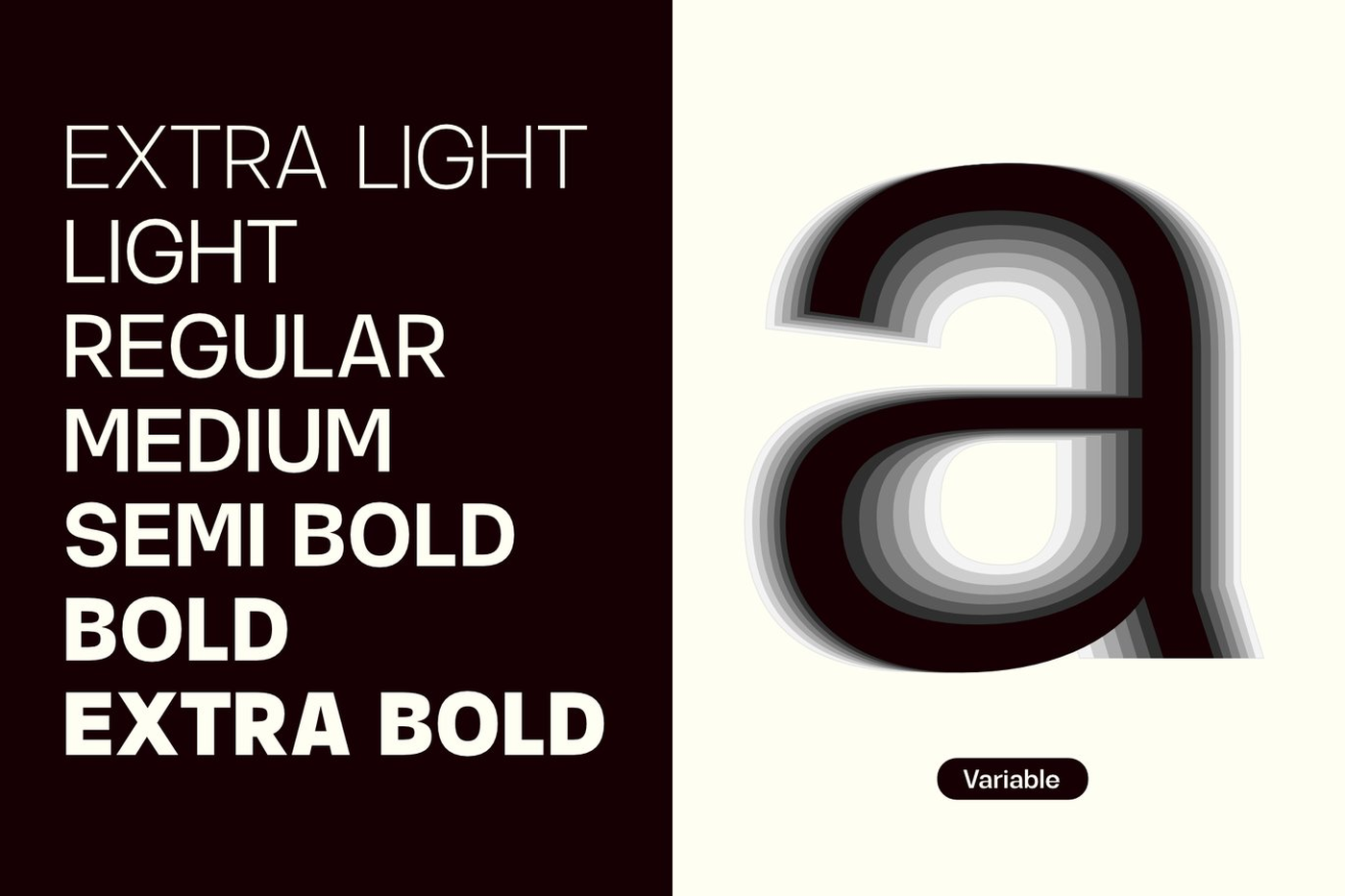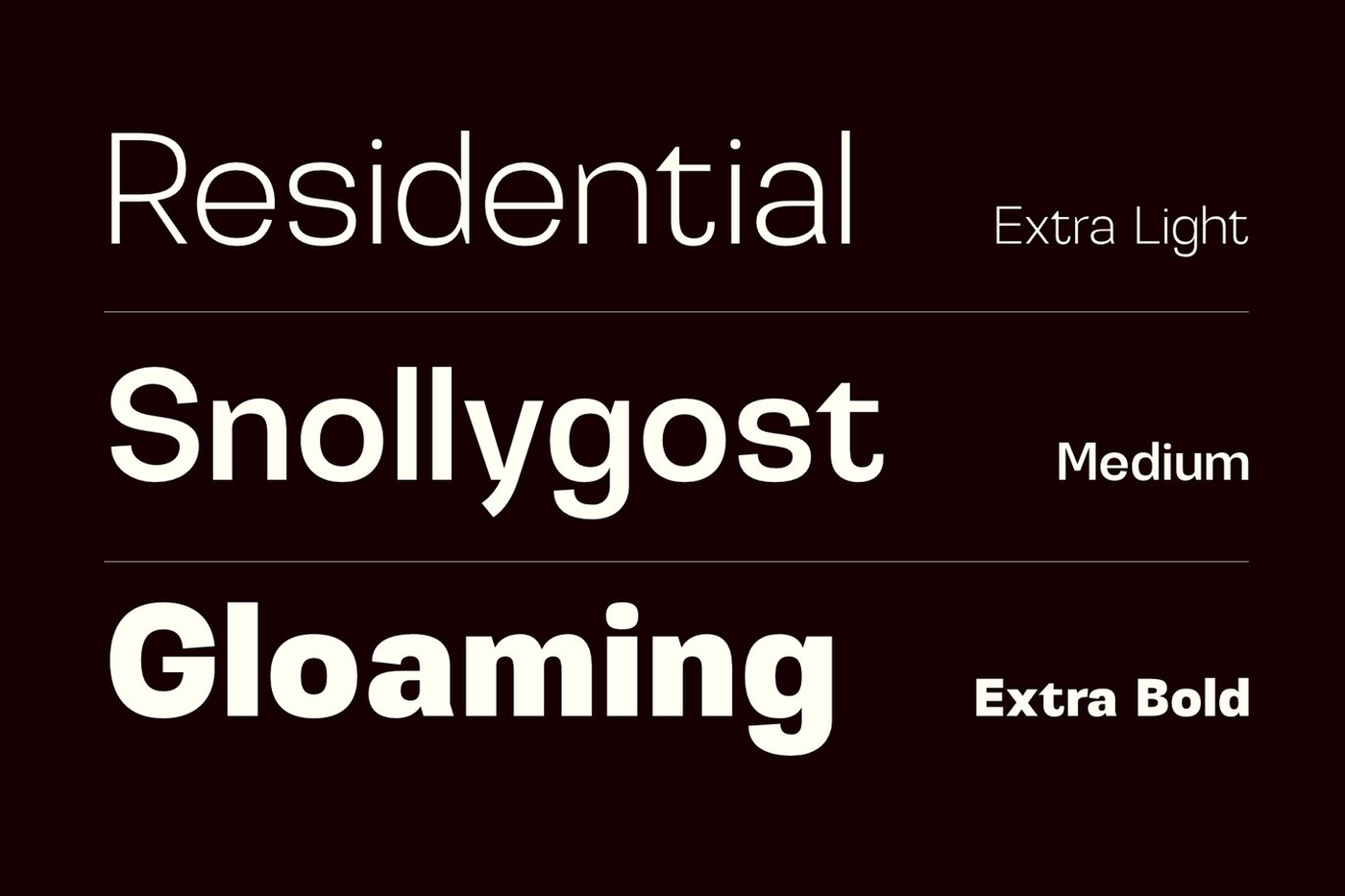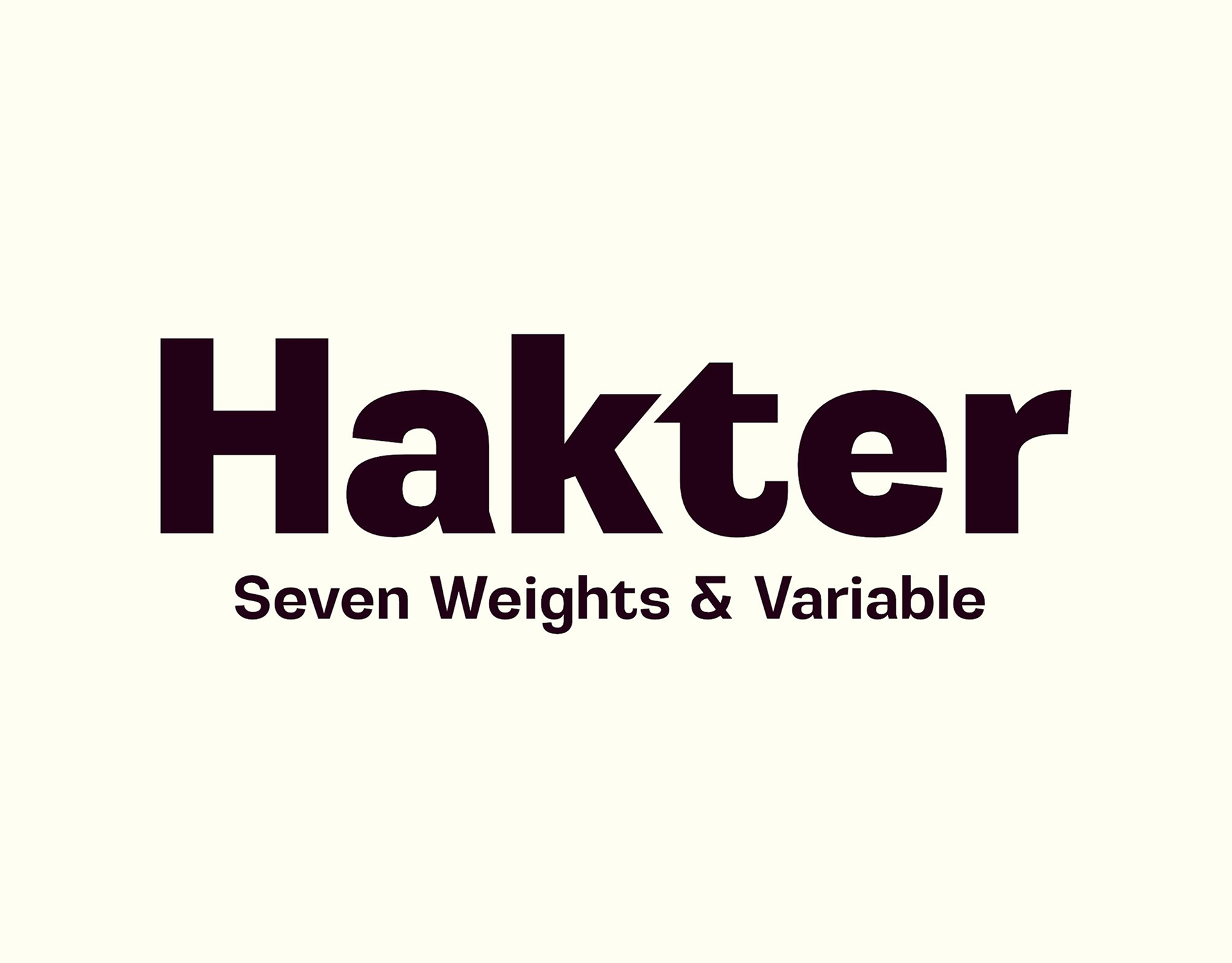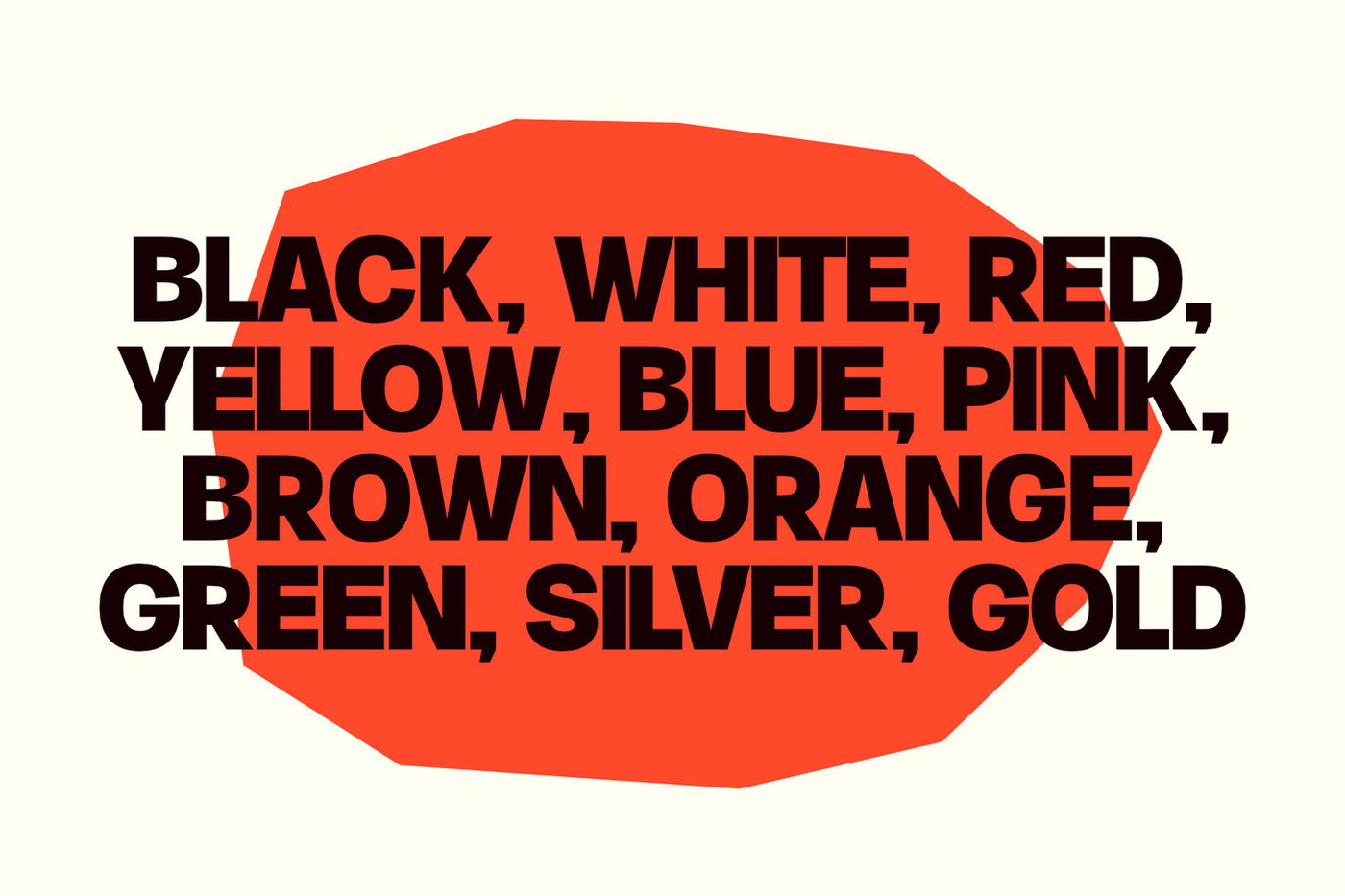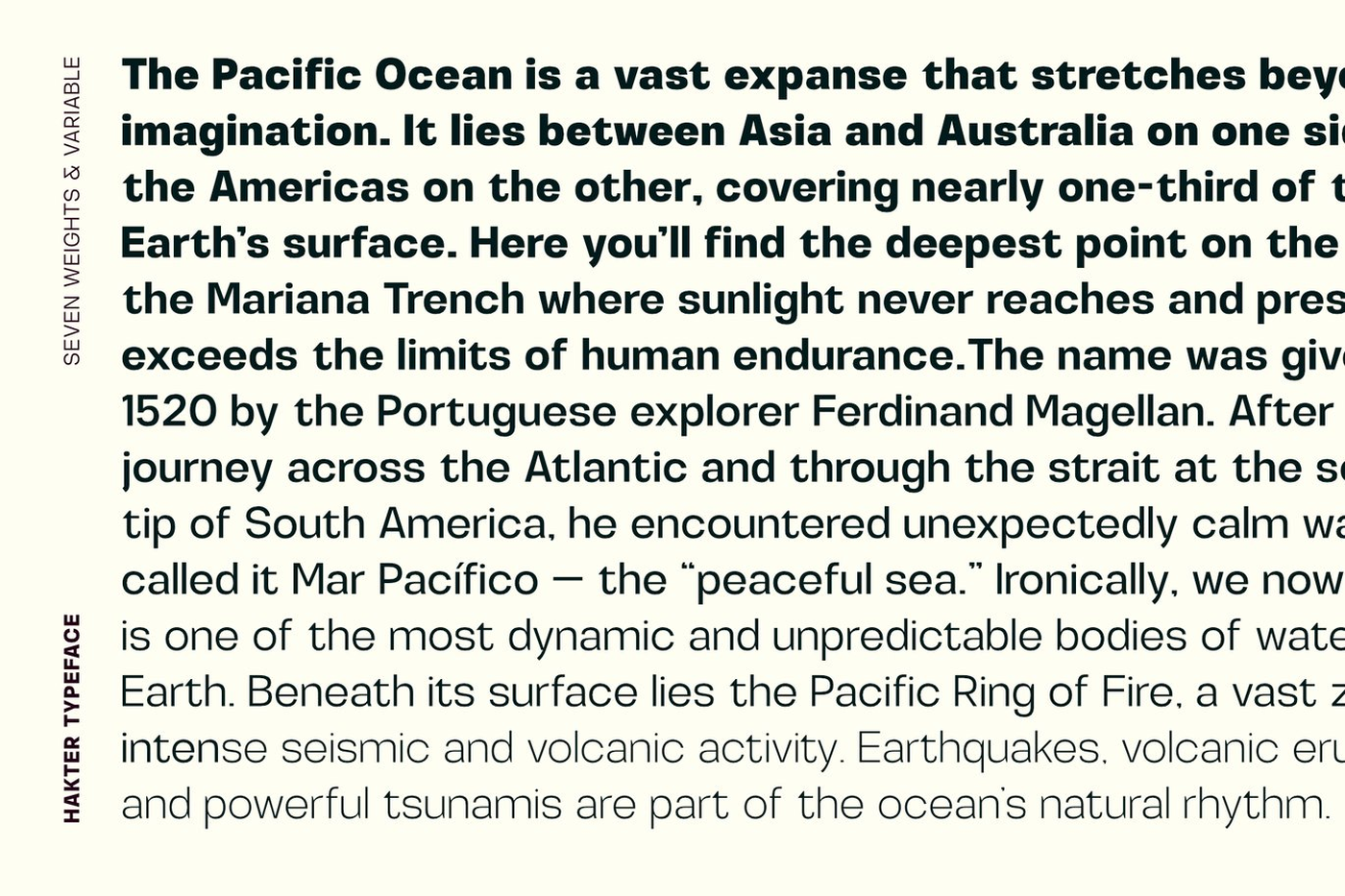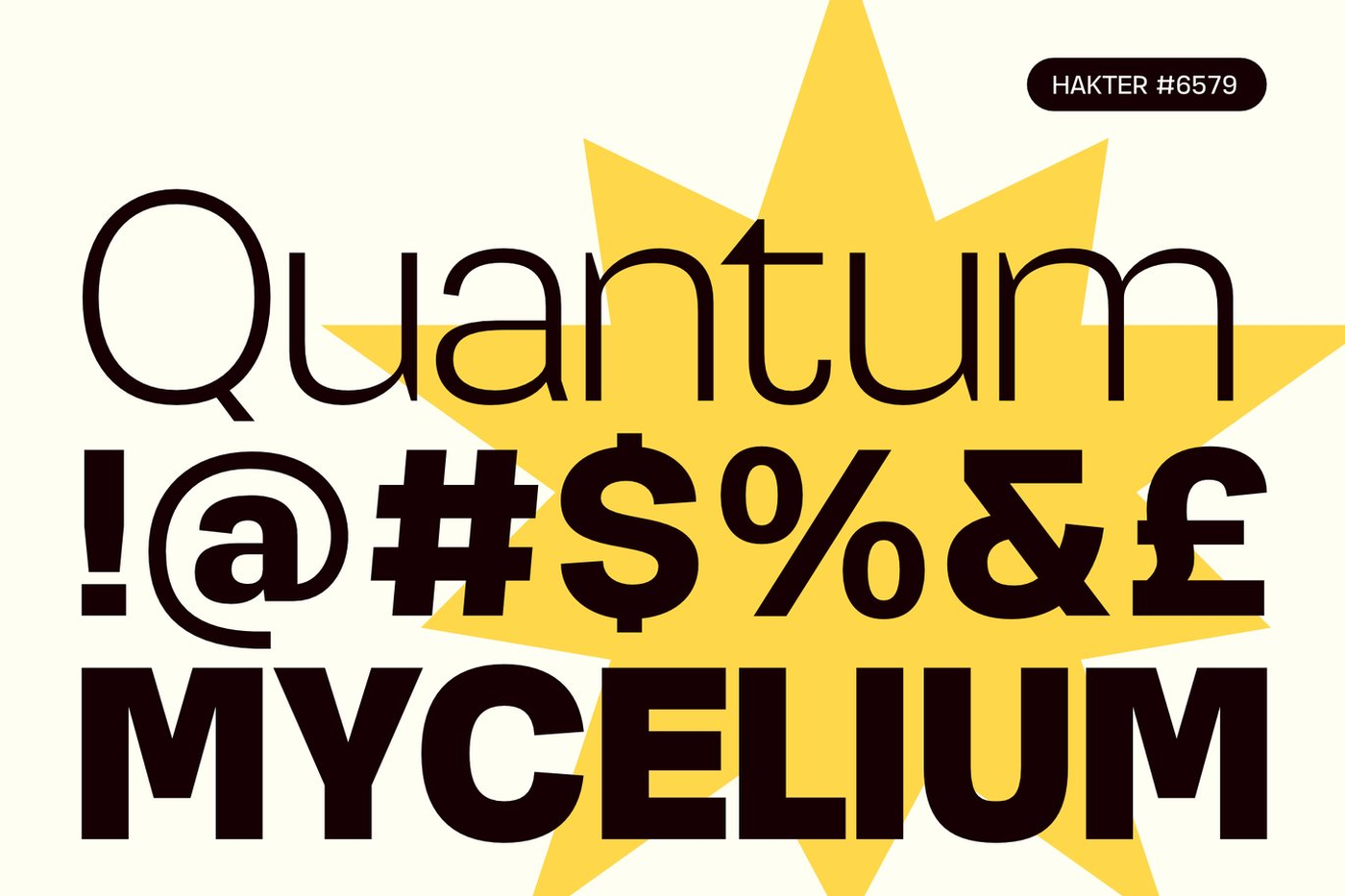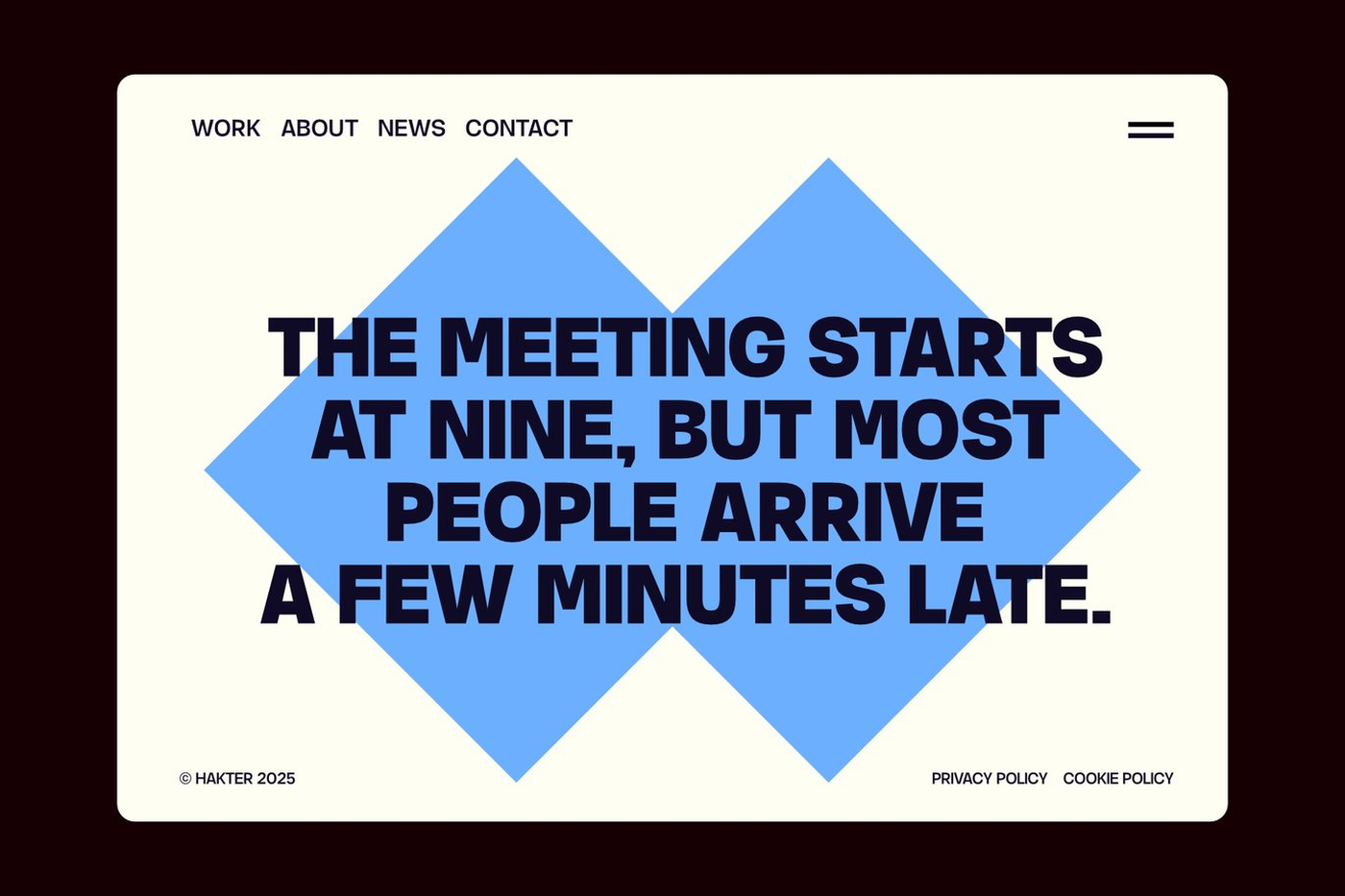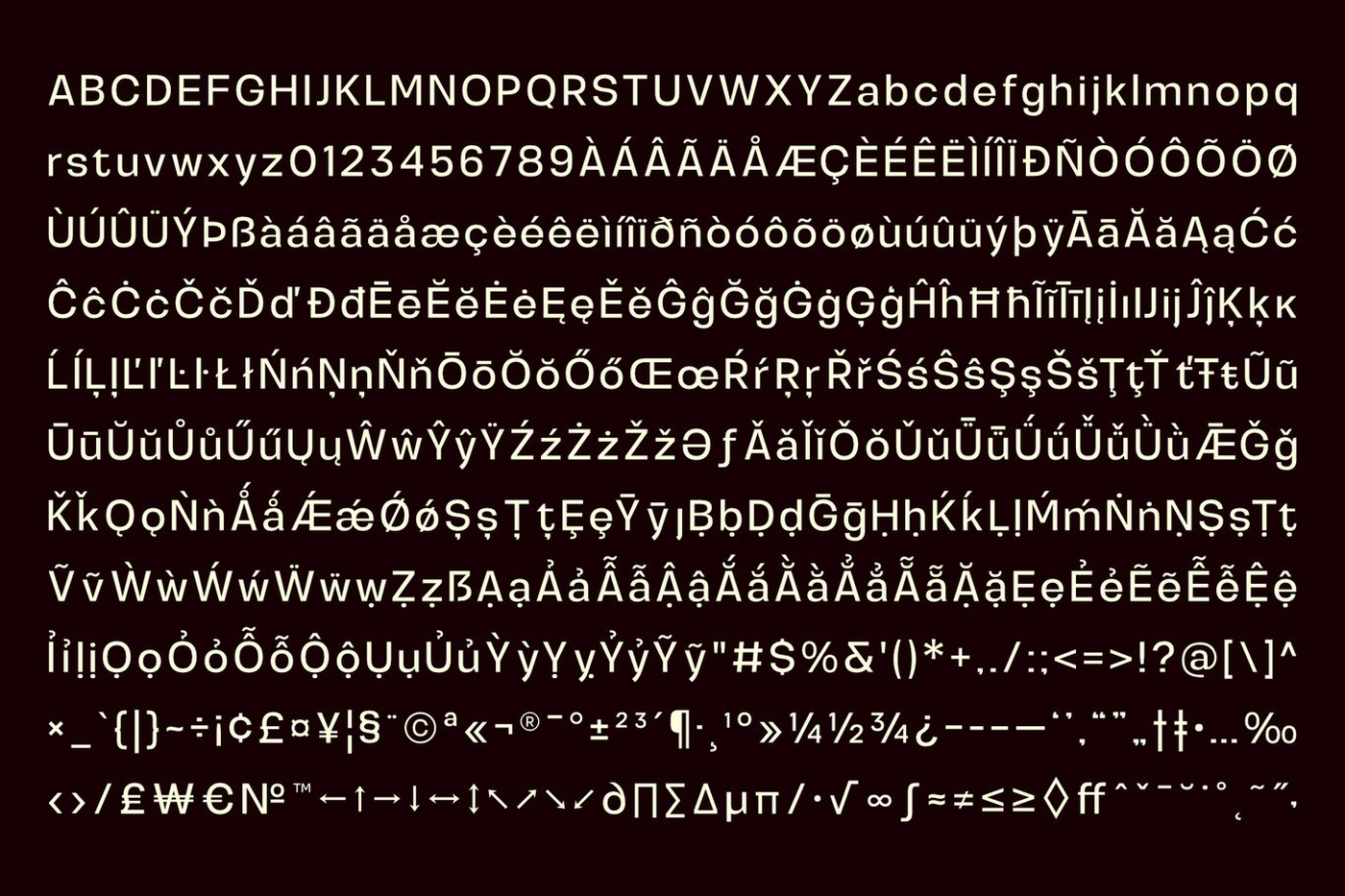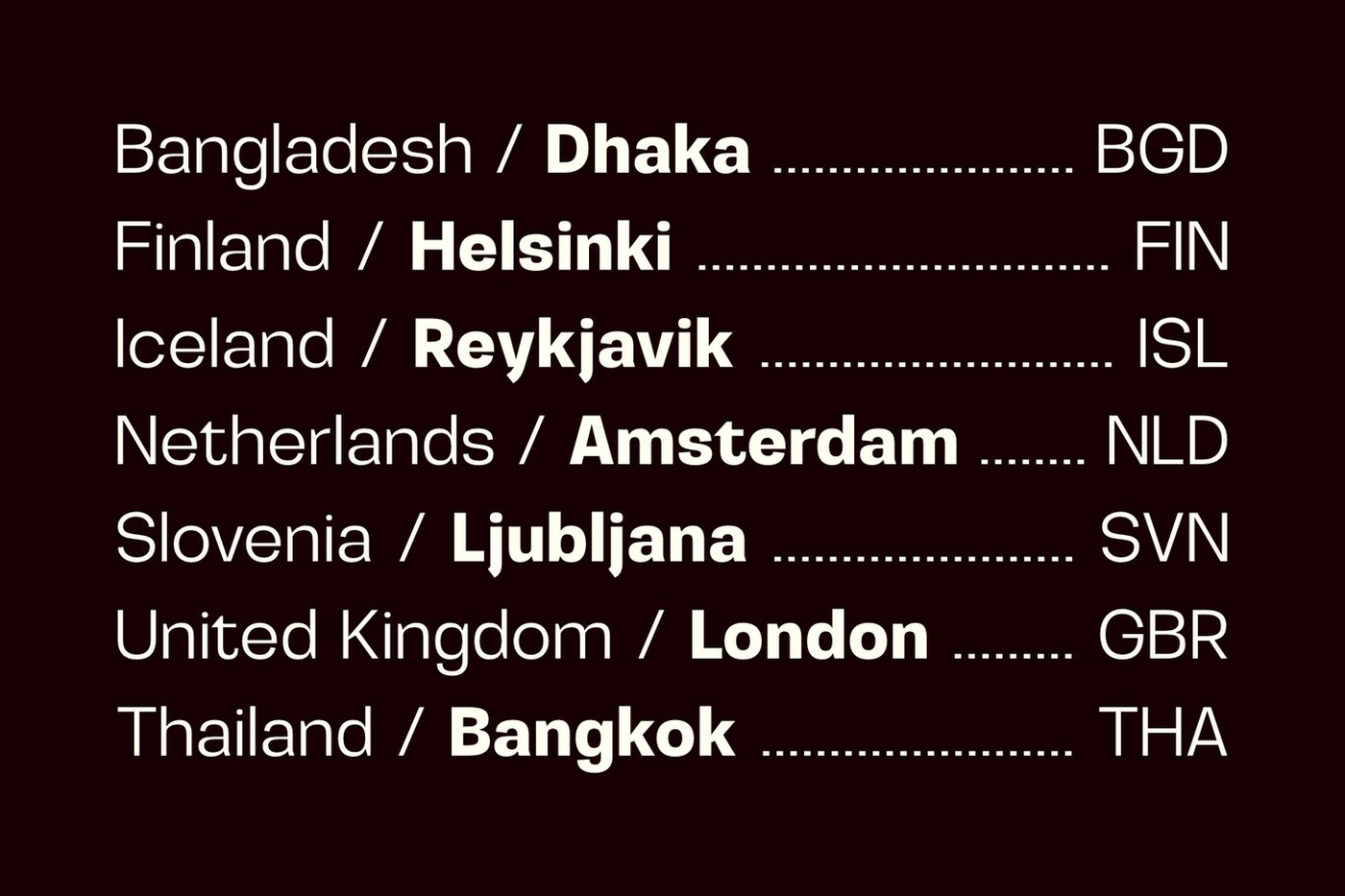
Hakter - Modern Grotesk Sans Serif Font
Hakter is a clean, modern grotesk sans serif typeface that combines functional minimalism with a strong visual presence. Designed with precision and balance, it works equally well in large headlines and smaller text applications. The typeface features seven carefully crafted weights, from Extra Light to Extra Bold, providing a wide typographic range for flexible design systems. In addition, Hakter includes a variable font, allowing smooth weight adjustments and full control in responsive and digital environments. With over 500 glyphs, Hakter supports multiple languages and professional typographic needs, including extended Latin characters, symbols, punctuation, and diacritics. Its neutral yet confident character makes it ideal for modern brands, websites, posters, presentations, and editorial layouts.
Font: Hakter